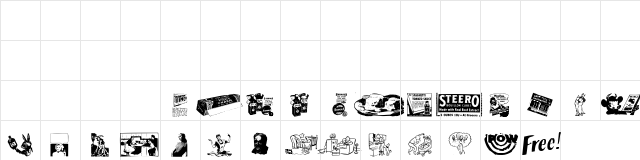
Old Time Ad Dings One Regular
Design Context for Old Time Ad Dings One Typeface
Old Time Ad Dings One is a composed and adaptable typeface that performs quietly and consistently across a wide range of design contexts.